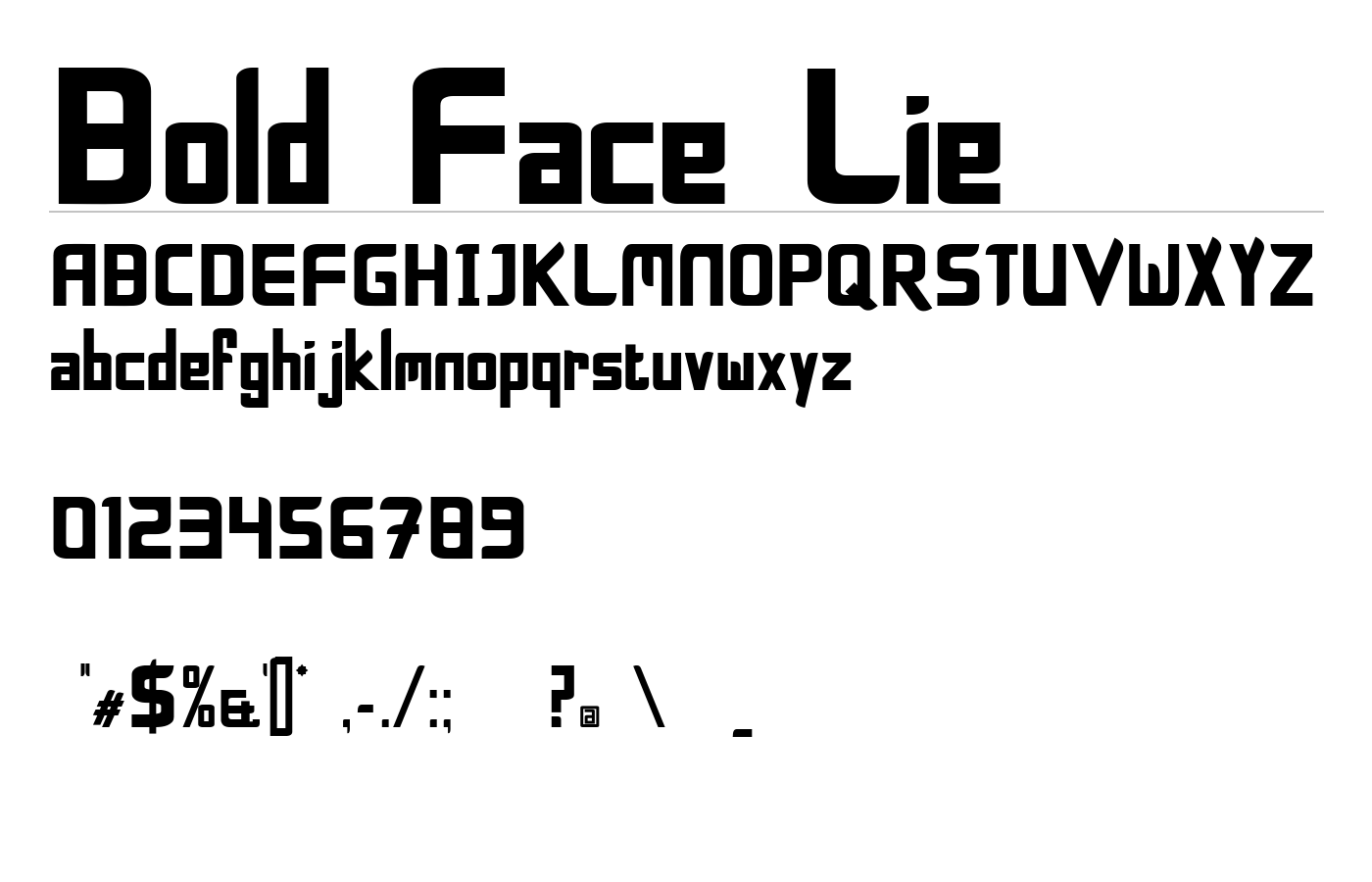
Bold Face Lie is a bold, condensed sans serif font with a modern, geometric feel. Its tall x-height and uniform stroke weight create a strong, impactful presence, while unique angular details and squared shapes lend it a slightly futuristic, edgy personality. This font works best for striking headlines, logos, or posters where a confident and contemporary style is desired.
Bold Face Lie Font
About Bold Face Lie Font
| Font family | Bold Face Lie Font |
| Designer | Mercer, Ryan Lamb |